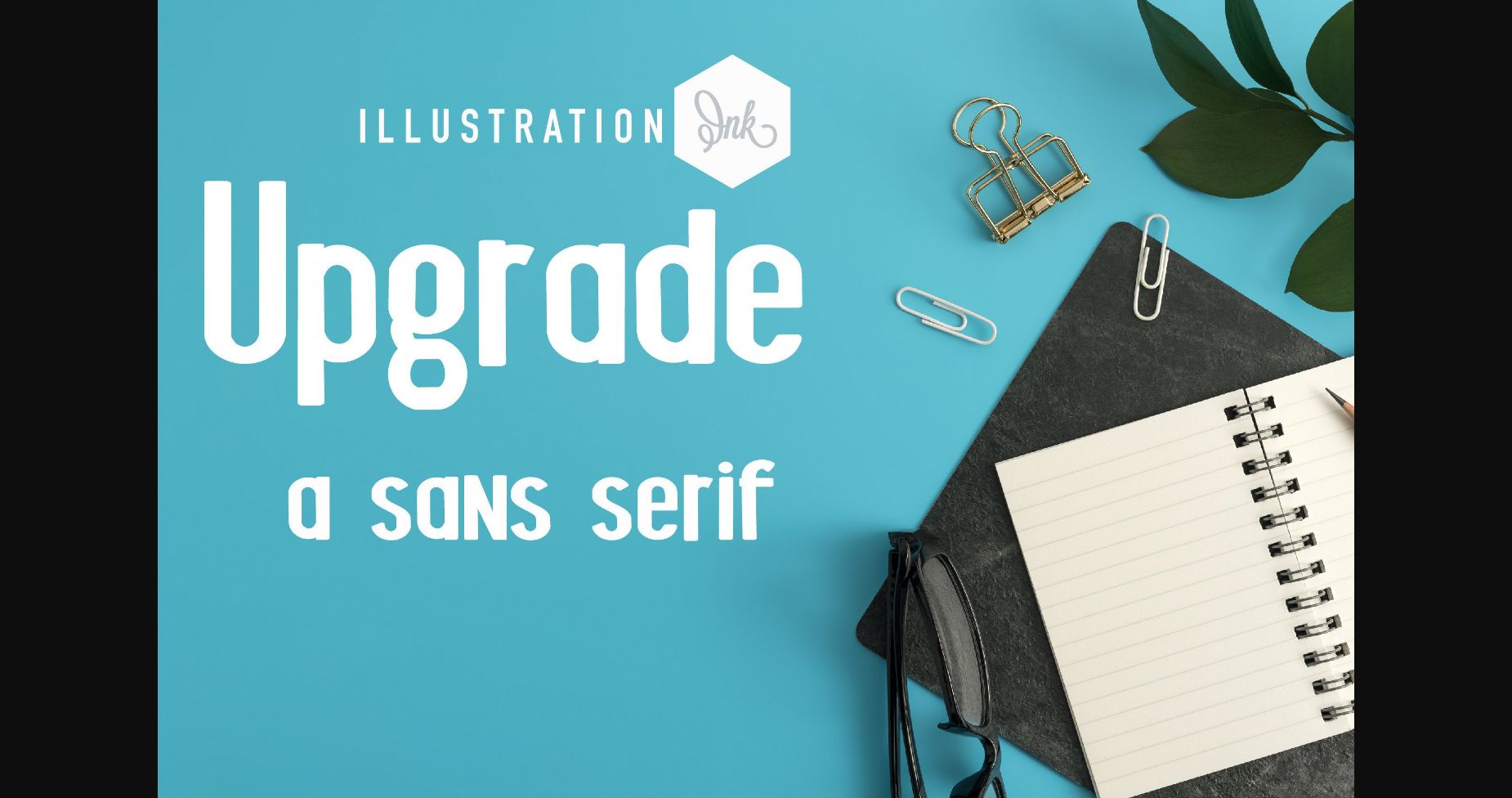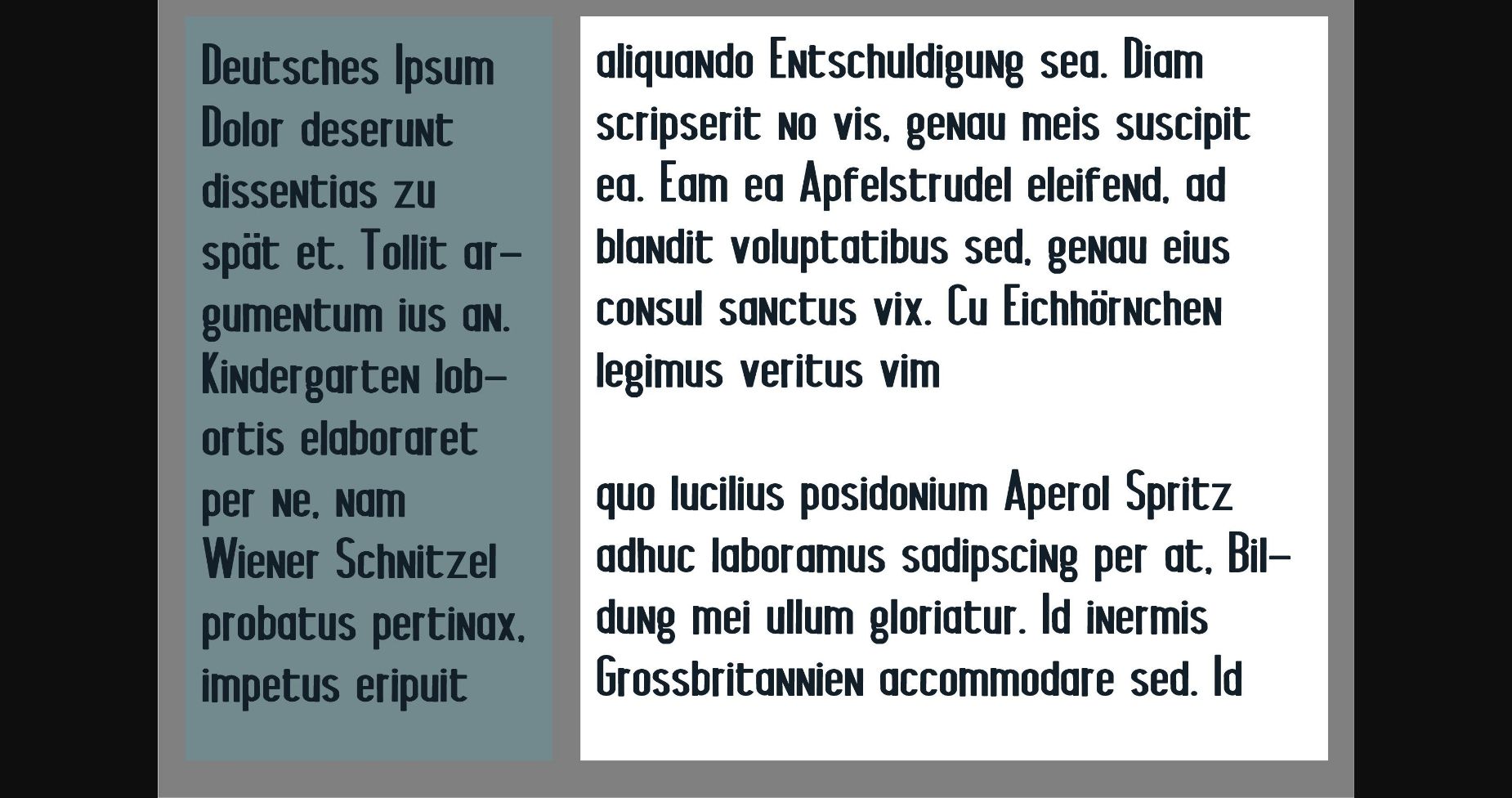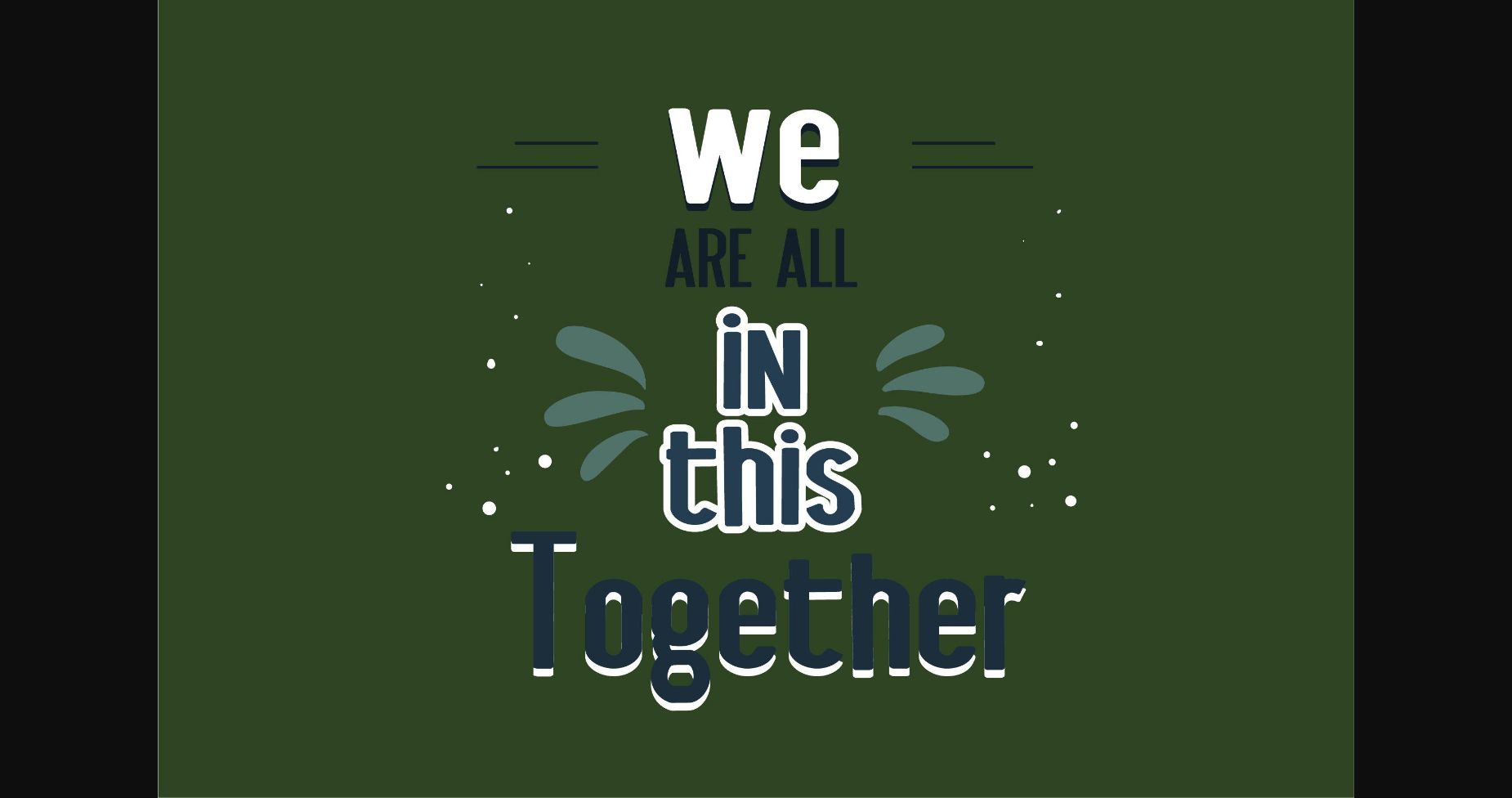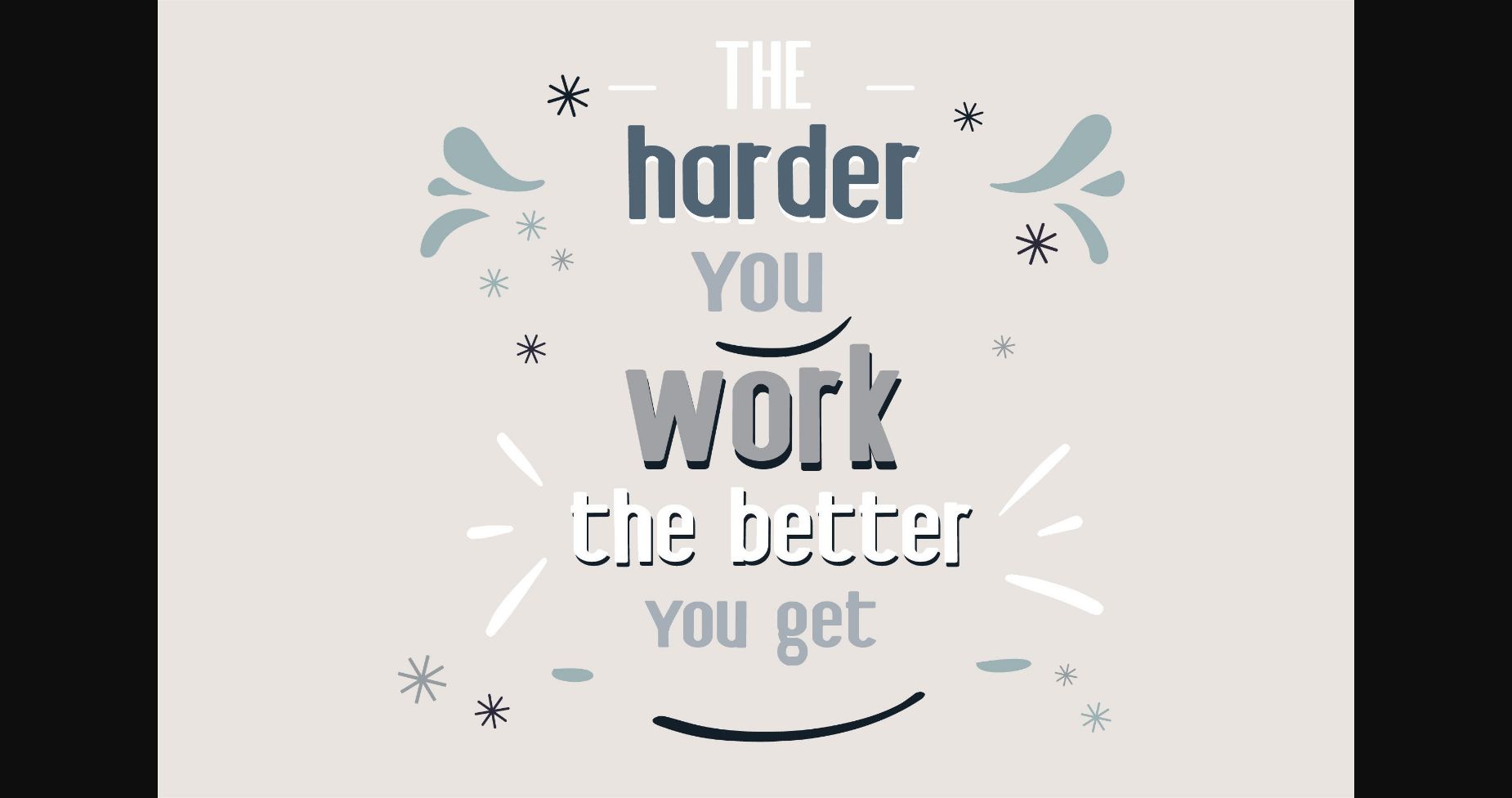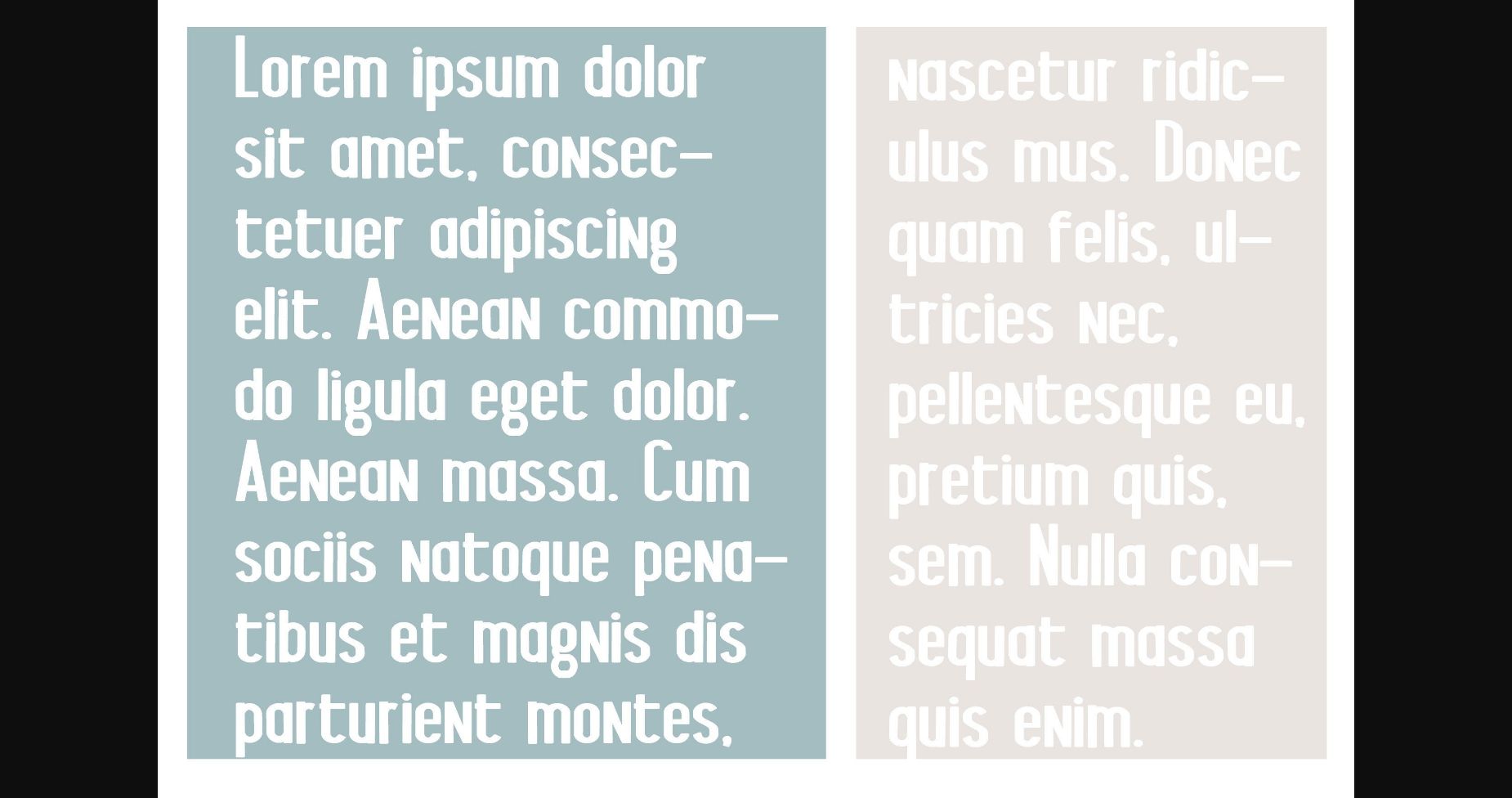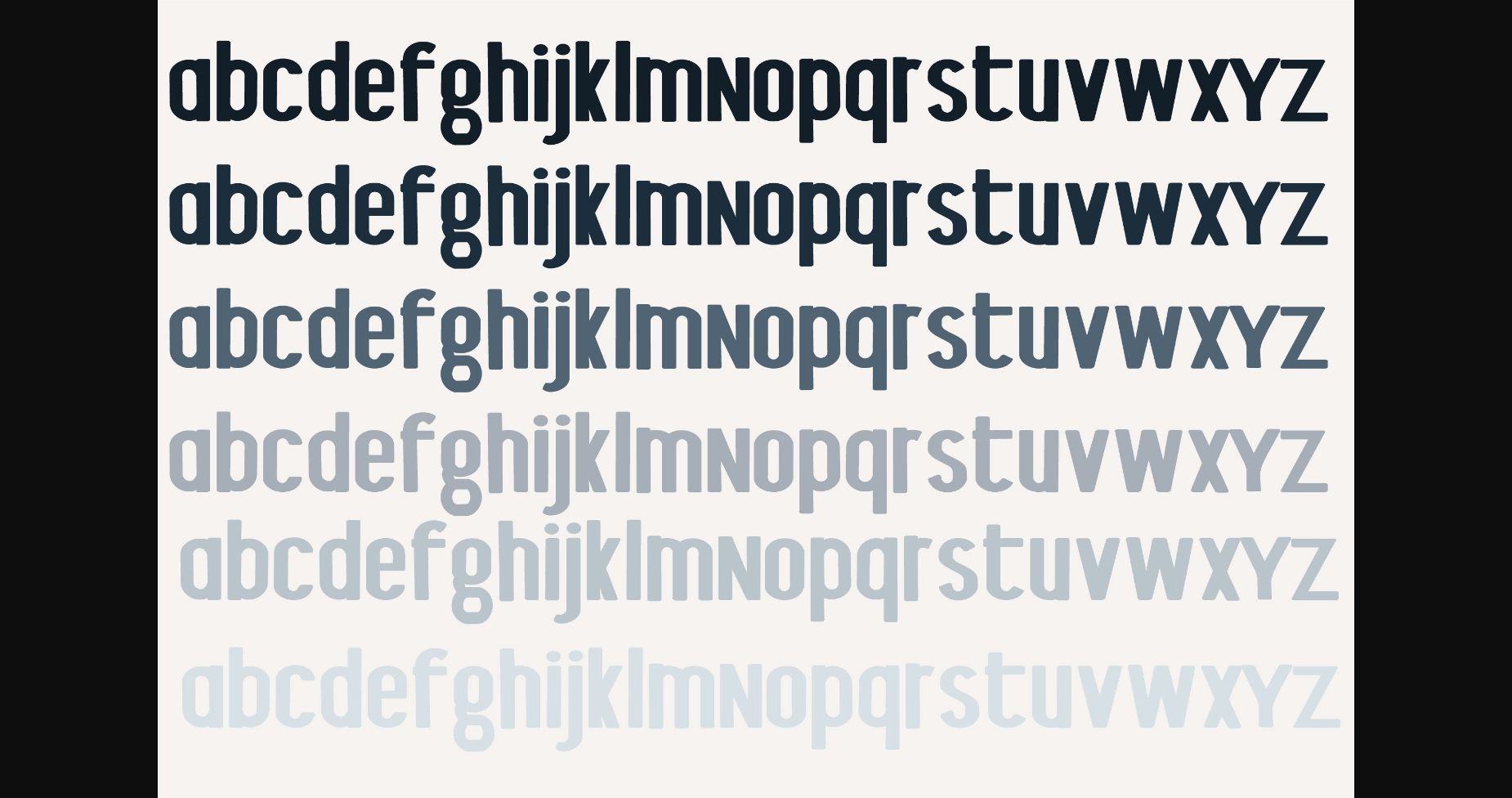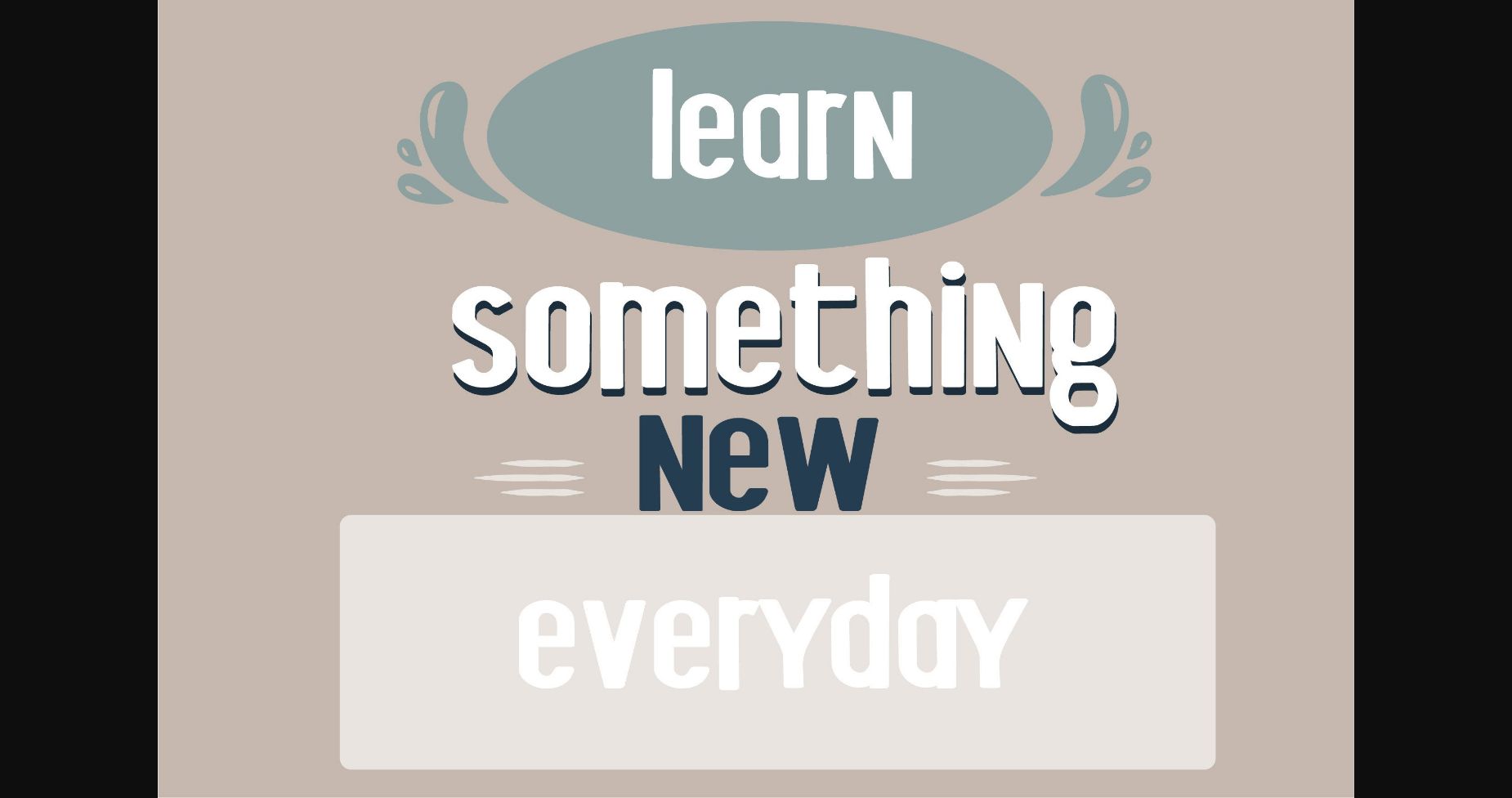
HomeSans Serif FontsUpgrade Font Sans Serif Fonts Upgrade Font FacebookXPinterestWhatsApp 1 of 9 ... Upgrade Font Poster 2... Upgrade Font Poster 3... Upgrade Font Poster 4... Upgrade Font Poster 5... Upgrade Font Poster 6... Upgrade Font Poster 7... Upgrade Font Poster 8... Upgrade Font Poster 9... About Upgrade Font Upgrade is a beautiful sans serif font that has a broad appeal and can be used for any project. This typeface will enhance your craft with little effort, making your product stand out from the competition. DOWNLOAD NOW People also explored Deswita Font Break Down Font Lovely Angels Font Winter Snow White Font Xmas Lights Trio Font Hopter Font Circumference Font Saluzzo Pillow Talk Font 451 0 TagsUpgradeUpgrade Font Previous articleHey Pumpkin FontNext articleKencana Font LEAVE A REPLY Cancel reply Comment: Please enter your comment! Name:* Please enter your name here Email:* You have entered an incorrect email address! Please enter your email address here Website: Save my name, email, and website in this browser for the next time I comment. Personal Use Free Vexler Slip Personal Use Free Read more about this font Open Store Personal Use Free Read more about this font True Love Personal Use Free Read more about this font Krait Personal Use Free Read more about this font BLOG Free Fonts Risk: Why Free Fonts Can Be Dangerous for Designers Free Fonts Risk: Why Free Fonts Can Be Dangerous for Designers Using free fonts is a common practice in web and graphic design. However, the... 5 Fonts That Will Dominate Design Trends in 2026 Best Fonts for YouTube Videos: Make Your Thumbnails Stand Out Top 10 Handwritten Fonts That Elevate Your Designs